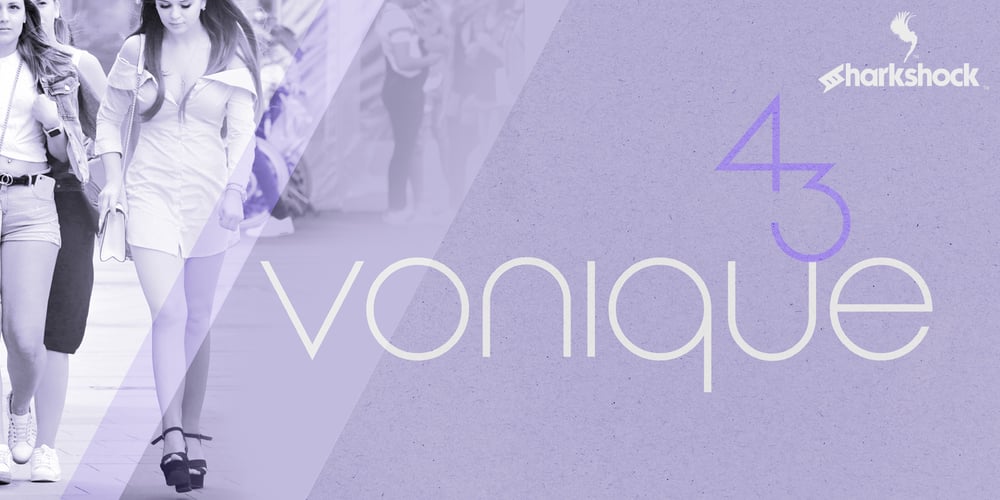
Vonique 43 Font Family was designed by Dennis Ludlow and published by Sharkshock. Vonique 43 contains 1 styles and family package options. Vonique 43 is a stylish display font designed to stop passerby in their tracks. Curvaceous lowercase members define this font along with a consistently thin line weight throughout. Most are elegantly styled after circles featuring very short descenders and matching the cap height of capital letters. Vonique 43, like its predecessors, was not designed for everyday text, but eye catching logos. It’s equipped with support for many different languages including Russian and Greek. Use it for a luxury brand, clothing line, or a company logo.